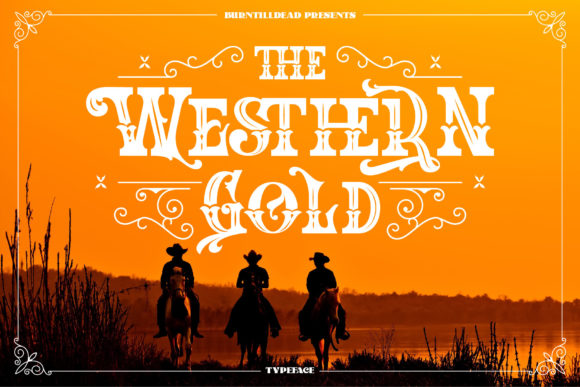
Introducing The Western Gold Font, the ultimate choice for all your Western-themed design needs. This captivating and bold display font will elevate your labels, posters, and branding to a whole new level. Created by the talented Burntilldead, this font is a must-have for anyone looking to add a touch of the Wild West to their designs.
With its unique Western look, The Western Gold Font instantly transports you to the rugged landscapes of the frontier. Whether you're designing a saloon sign, a cowboy-themed party invitation, or a vintage-inspired poster, this font will bring your vision to life with its authentic and captivating style.
But what sets The Western Gold Font apart from the rest? It's not just about its eye-catching aesthetics; this font is also packed with features that make it a dream to work with. Thanks to its PUA encoding, accessing all the glyphs and swashes is a breeze. Say goodbye to limited options and hello to endless possibilities.
Imagine the impact this font will have on your audience. Picture your labels grabbing attention on store shelves, your posters standing out in a sea of advertisements, and your branding leaving a lasting impression on potential customers. The Western Gold Font is your secret weapon to making a memorable statement.
But don't just take our word for it. Join the countless designers who have already downloaded The Western Gold Font and witness the transformation it brings to their projects. Experience the thrill of unleashing your creativity with a font that truly embodies the spirit of the Wild West.
So, why wait? Embrace the power of The Western Gold Font and embark on a design journey that will captivate and inspire. Let this font be the driving force behind your Western-themed masterpieces. With its captivating style, endless possibilities, and ease of use, it's the best font for any project that seeks to transport users to the untamed beauty of the Wild West.